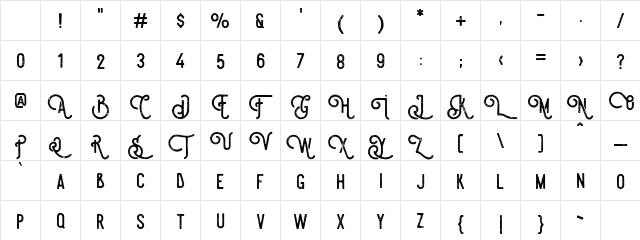
Complete Steelworks Vintage Demo glyph index. Displaying only characters natively supported by Steelworks Vintage Demo font.
Steelworks Vintage Demo wears its vintage influences proudly, with letterforms that recall mid-century signage, classic packaging, and nostalgia-driven design.
Font Pairing: Combine Steelworks Vintage Demo with a simple slab or neutral sans - period-accurate companions reinforce the vintage feel without competing for attention.
Pro Tip: Lean into Steelworks Vintage Demo's period character by pairing it with aged paper textures, muted colour palettes, and vintage illustration styles.